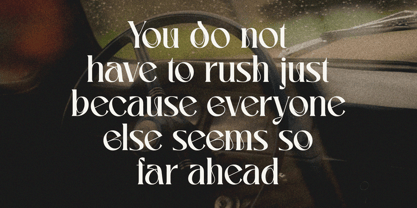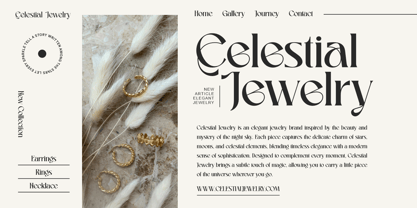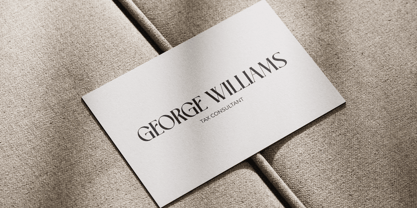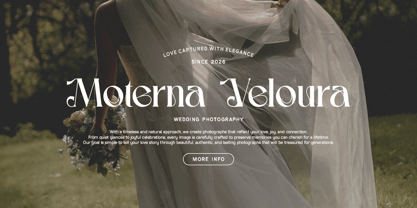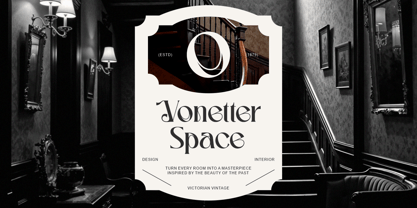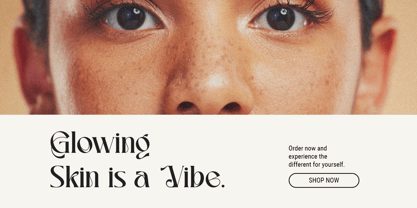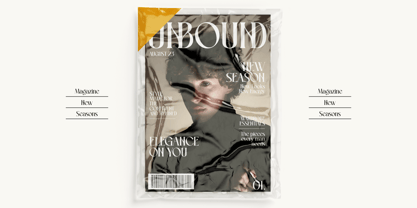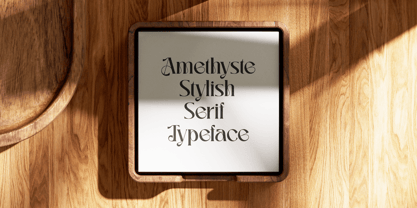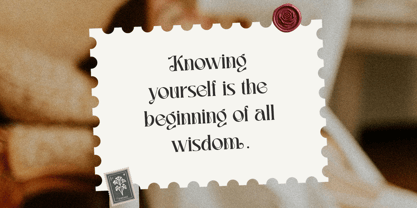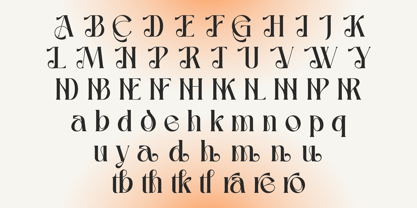
Amethyste
by Heinzel Std
The Amethyste Font Family was designed by Nofi Sofyan Hadi and published by Heinzel Std. Amethyste contains 1 styles. More about this family
Amethyste is a sophisticated modern serif typeface designed to bring an elegant, artistic, and fashion-forward character to your creative projects. With its high-contrast letterforms, refined curves, distinctive serifs, and expressive details, Amethyste creates a luxurious visual impression while maintaining a contemporary feel.
Perfect for fashion branding, luxury logos, editorial design, magazine covers, beauty packaging, wedding stationery, invitations, posters, social media graphics, product branding, and elegant advertising, Amethyste is made to make typography stand out.
Its graceful proportions and stylish letterforms work beautifully for both minimal layouts and expressive compositions. Whether you're creating a premium brand identity or an editorial headline, Amethyste adds a polished and distinctive personality to every design.